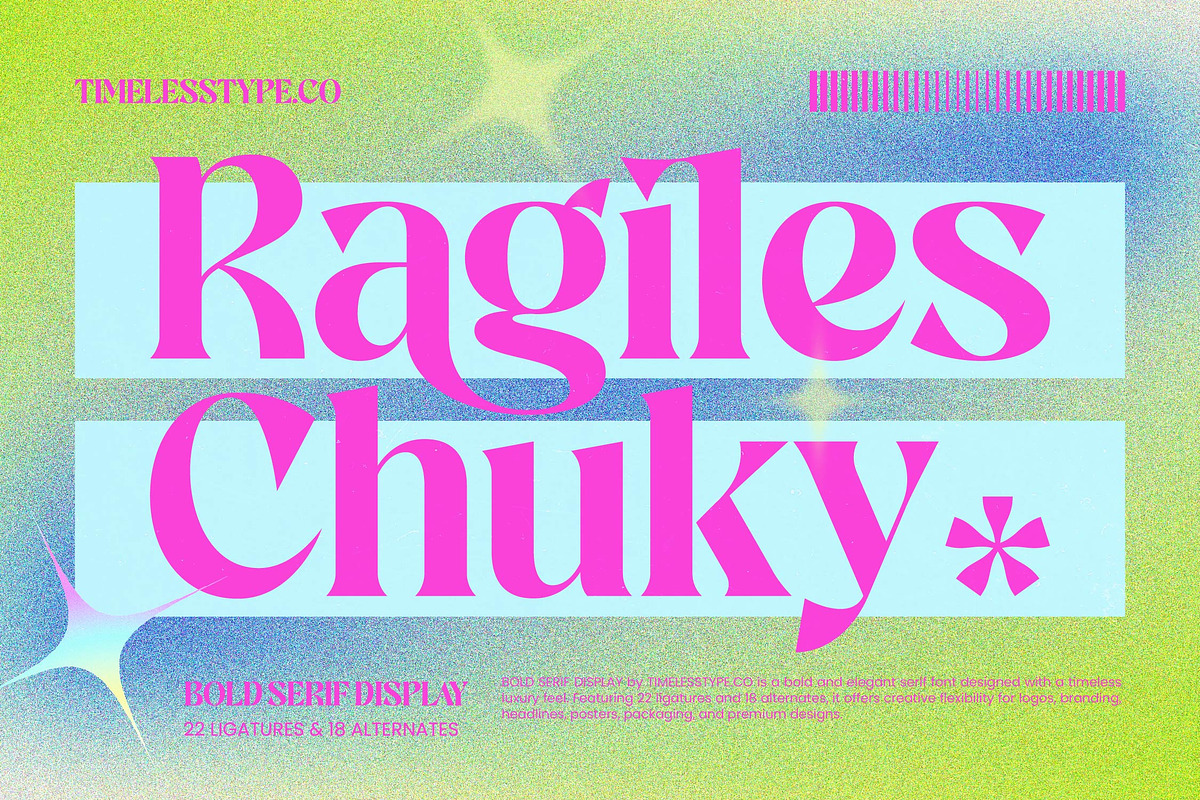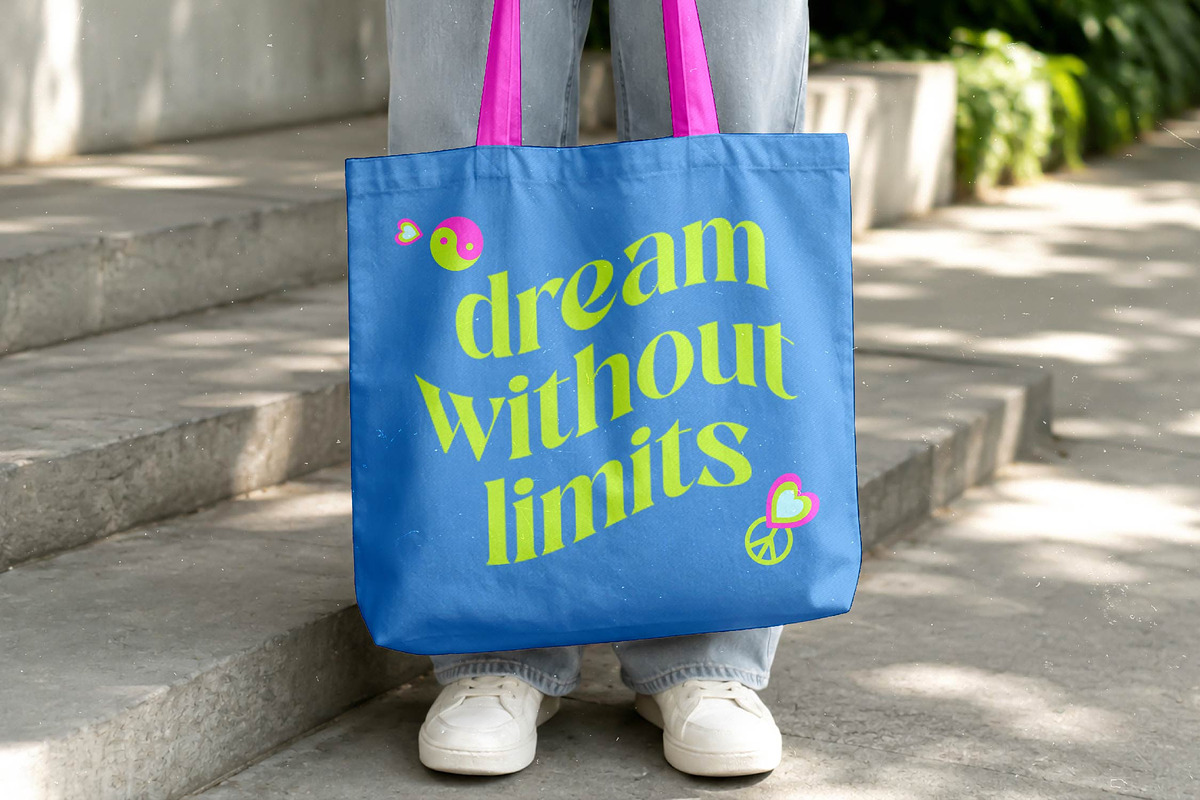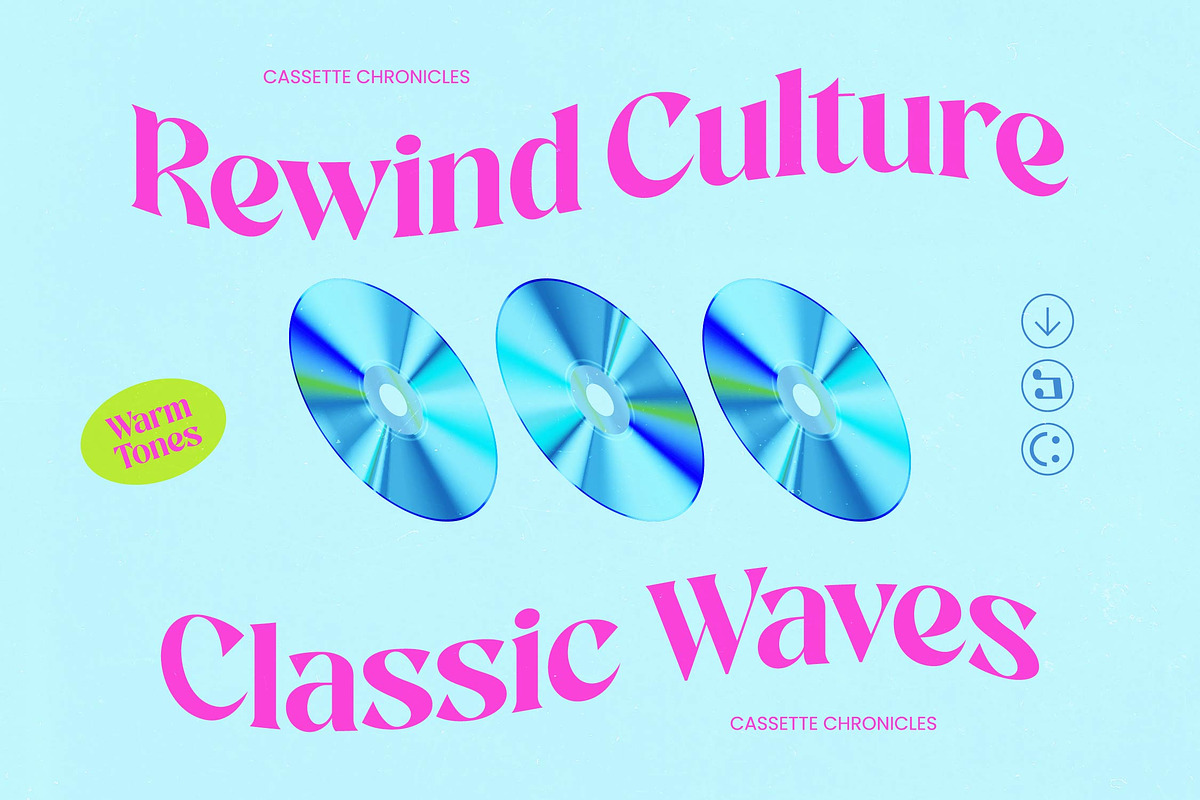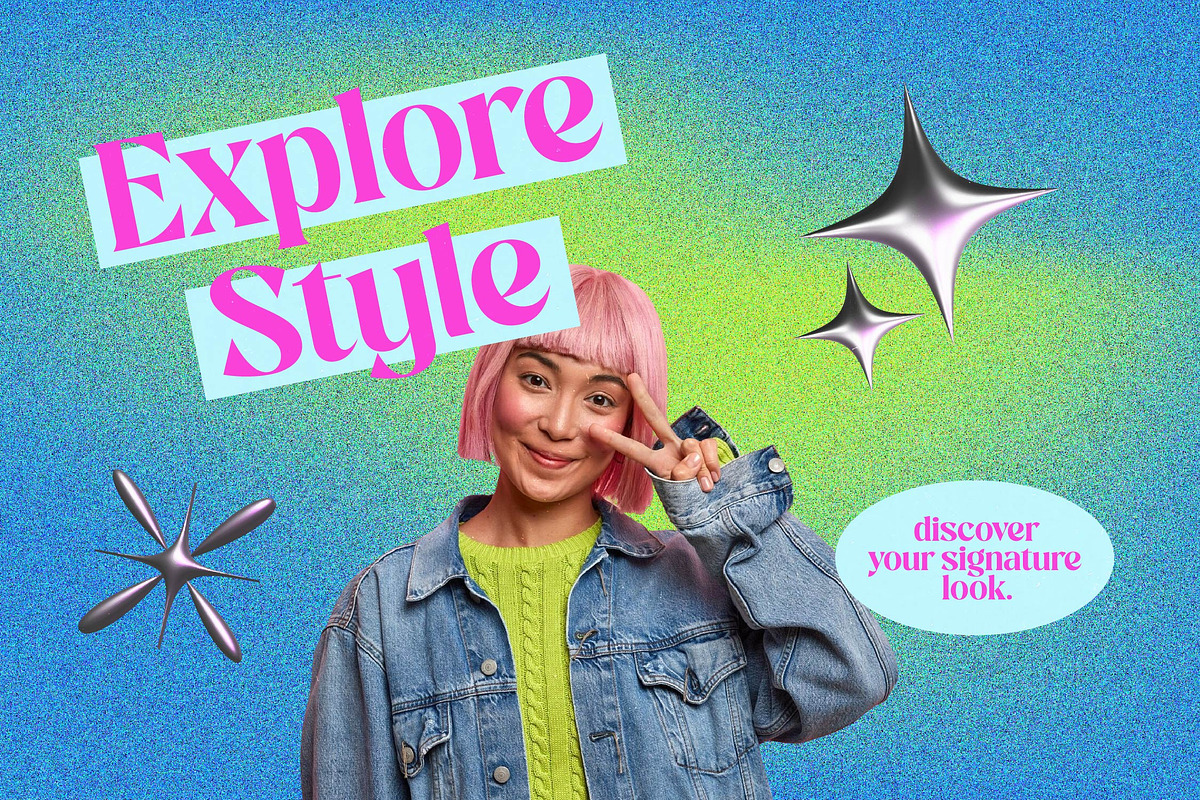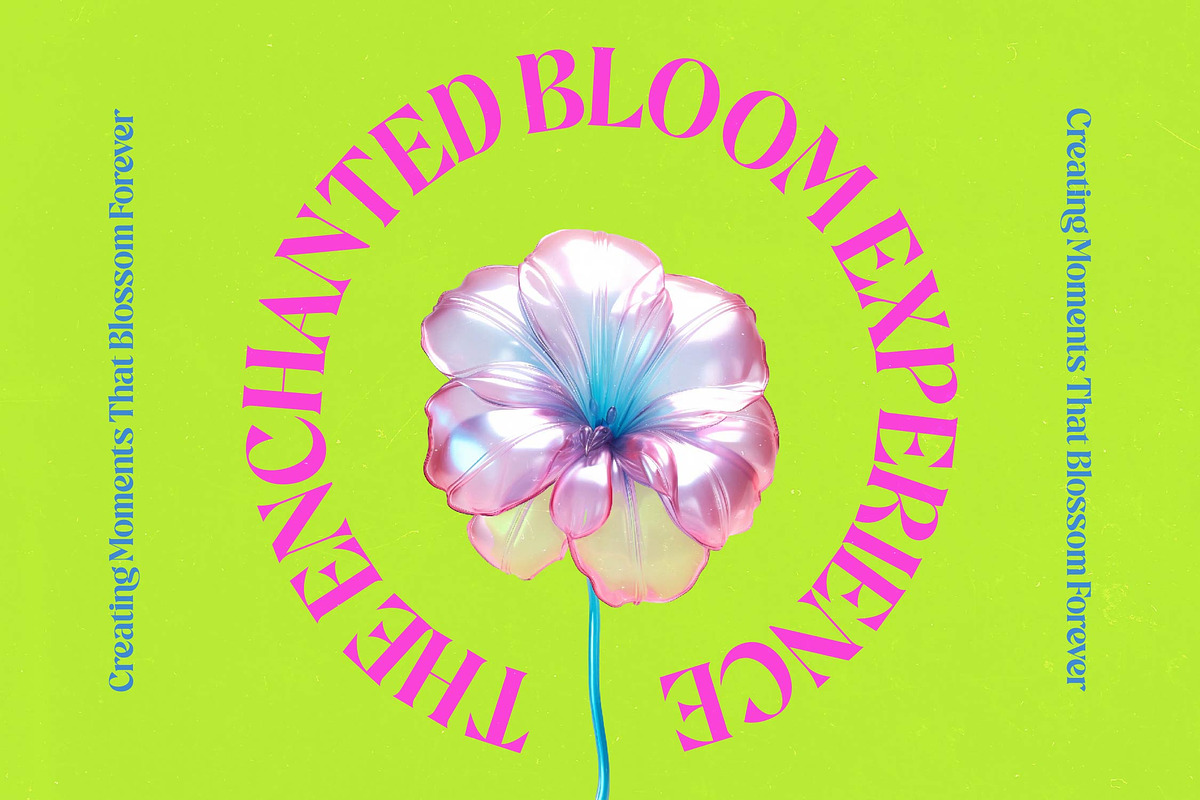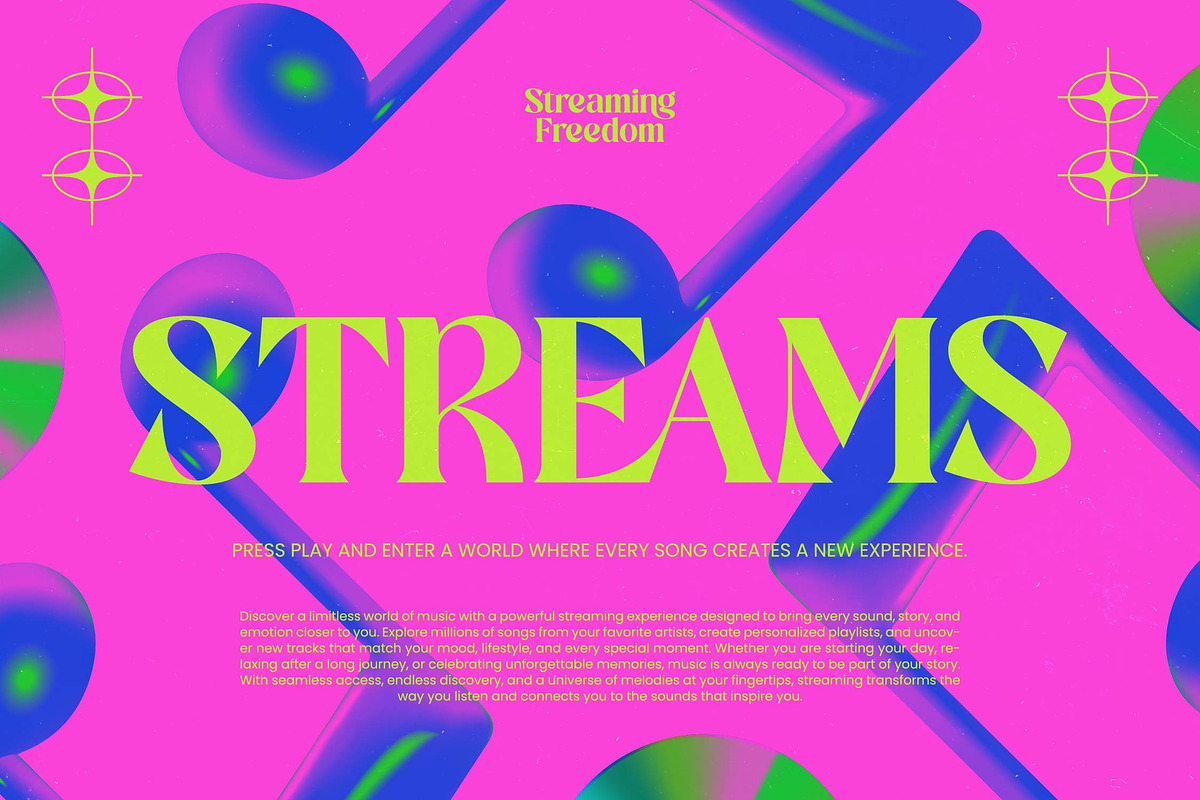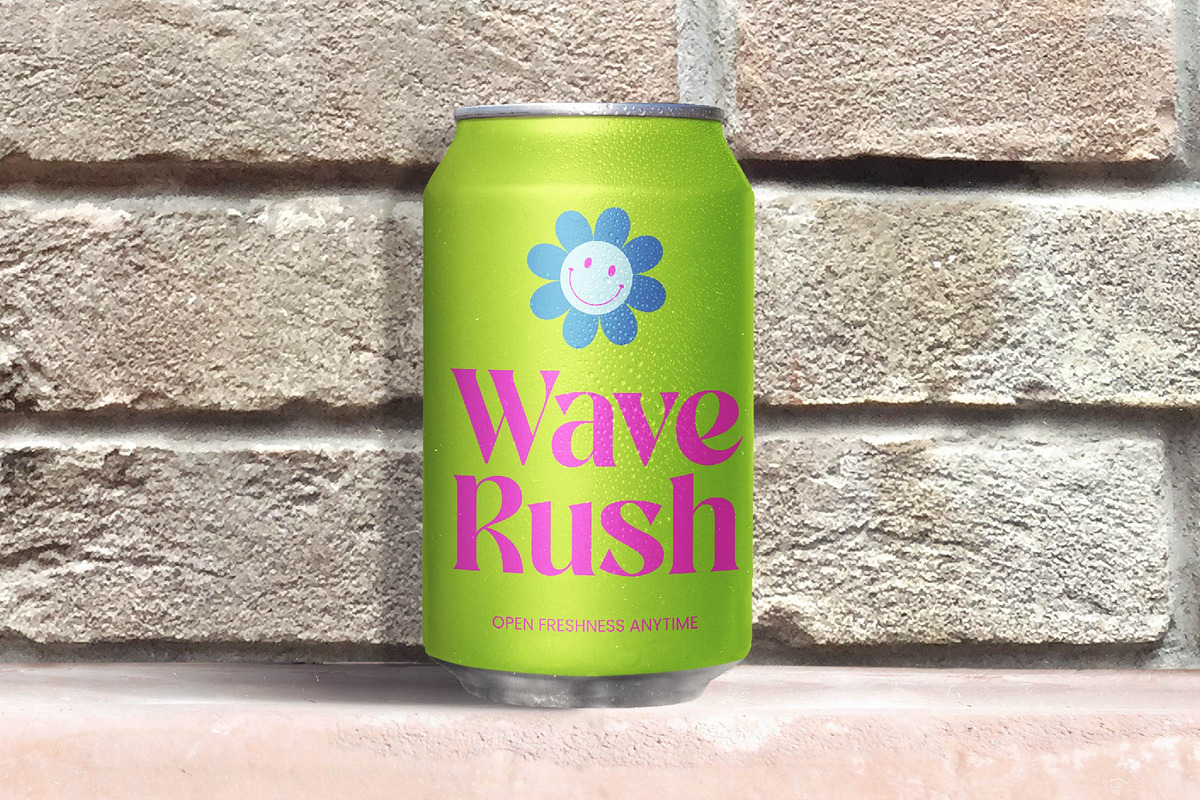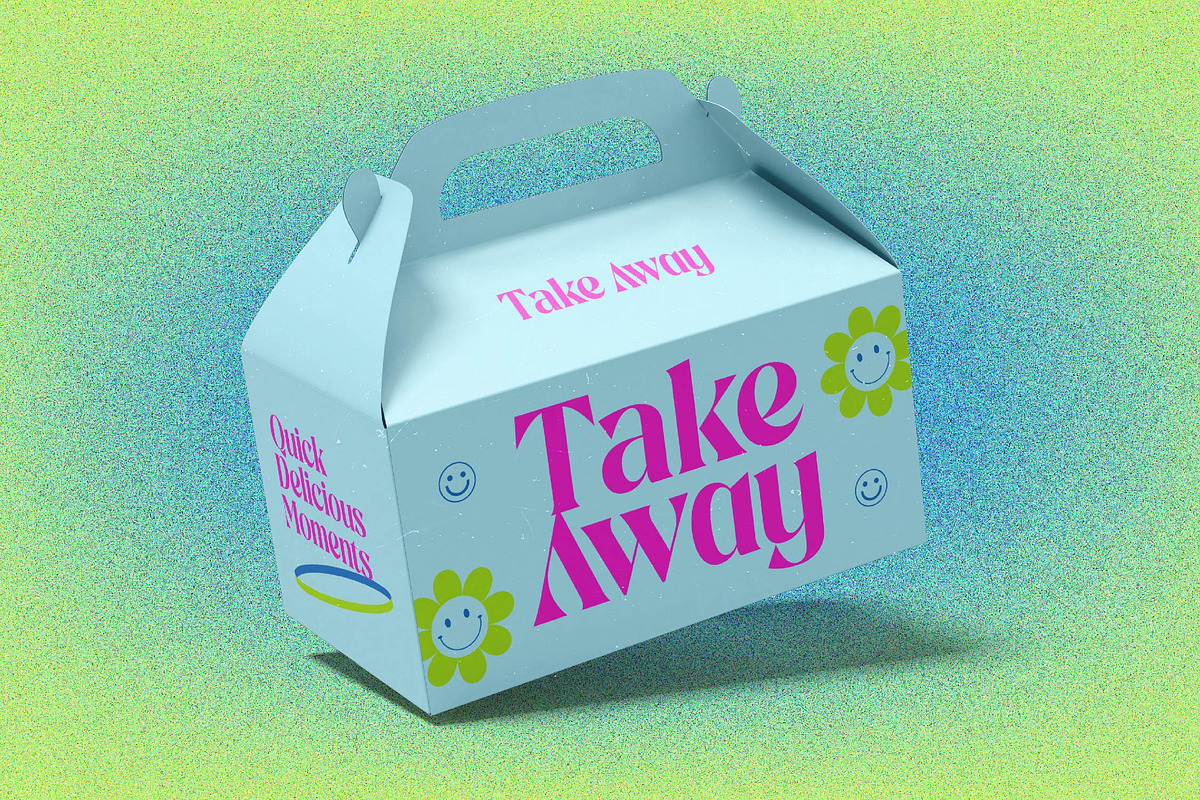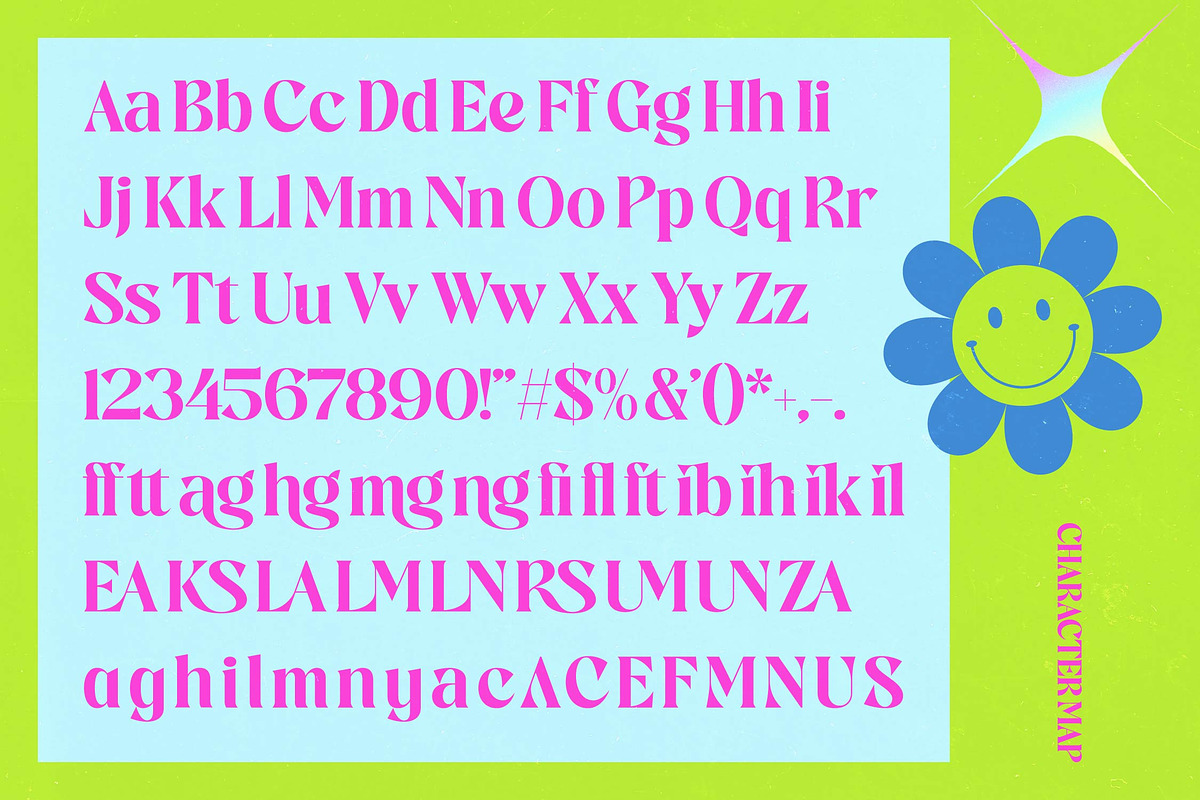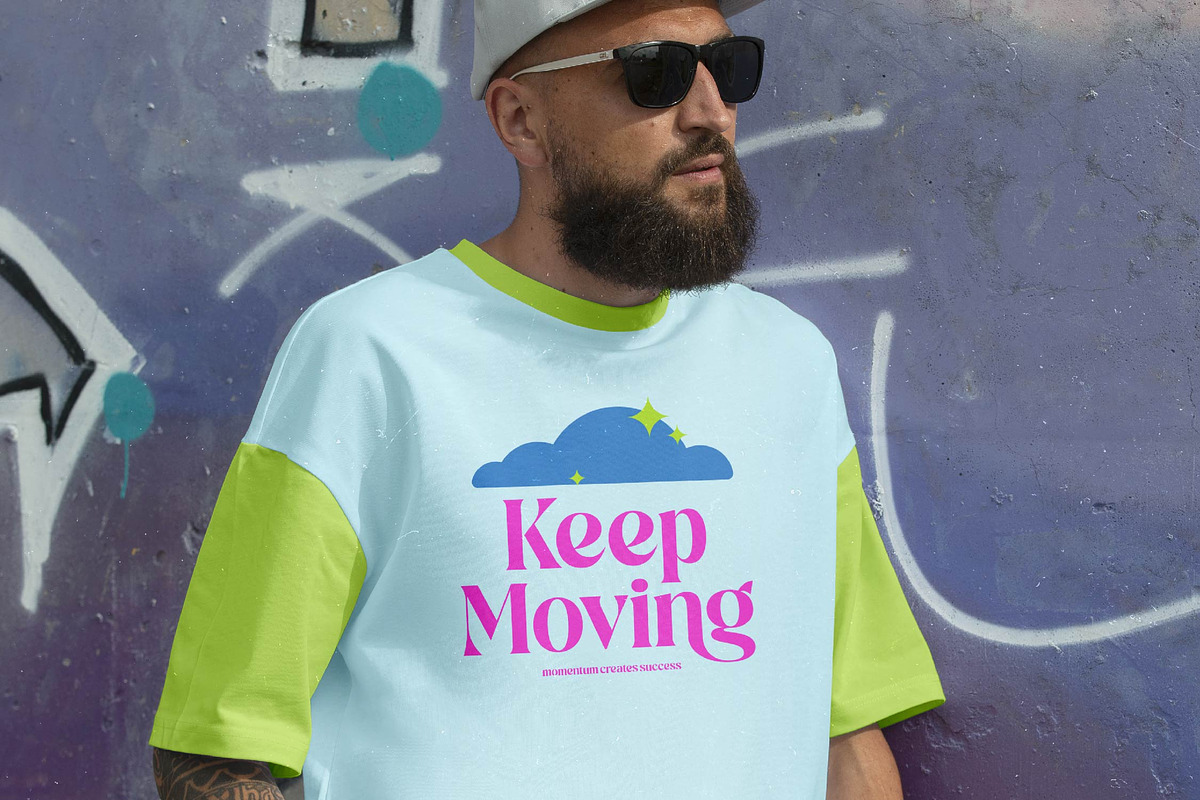
Ragiles Chuky Bold Serif Display
Ragiles Chuky - Bold Serif Display , Elevate your visual identity with a typeface that defines modern elegance. Ragiles Chuky - Bold Serif Display is a masterpiece of high-contrast typography, blending classic serif structures with a bold, contemporary aesthetic. Its commanding presence makes it an essential tool for designers seeking a high-impact visual statement. Featuring 22 ligatures and 18 alternates, this font provides creative flexibility for layouts that exude style.
Global reach is effortless with built-in versatility. With its extensive multilingual support, Ragiles Chuky - Bold Serif Display adapts seamlessly across global markets, making it incredibly versatile for international projects. This ensures that your brand identity remains consistent across various languages, providing a reliable typographic solution for agencies and businesses operating on a worldwide scale.
Discover the perfect fit for your most prestigious creative projects. This typeface is engineered specifically for luxury branding, high-end packaging, and editorial design. Whether you are crafting a fashion magazine cover or a premium logo, Ragiles Chuky - Bold Serif Display delivers a polished feel. It is also perfect for headline displays where a balance of timeless elegance and bold personality is essential.
Transform your design portfolio with a touch of timeless sophistication. The unique character of Ragiles Chuky - Bold Serif Display lies in its ability to bridge vintage charm and futuristic flair. Its crisp serifs maintain a premium aesthetic across digital and print media. By integrating Ragiles Chuky - Bold Serif Display into your projects, you are choosing a commercial-grade font that guarantees a professional finish.